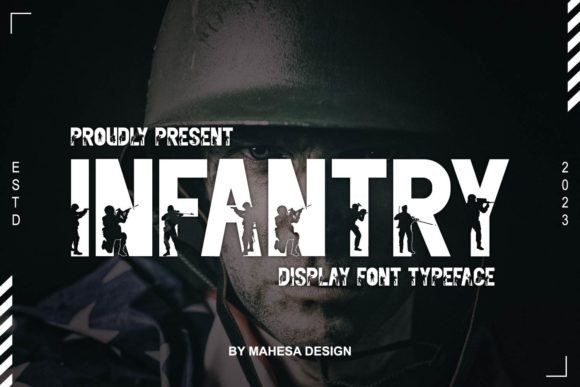
Enter the world of Infantry Font, an extraordinary decorative font designed by Mahesa Design. Its unique selling point lies in the intricately crafted silhouettes of infantry soldiers embedded within each letter, oozing military charm. This font is a weapon in the arsenal of designers seeking to create striking designs that leave a lasting impression.
Infantry Font is the perfect choice for crafting posters, flyers, and other designs that demand a bold and forceful typeface. Its powerful presence will cut through the noise, ensuring your message is heard loud and clear. Whether you're designing for a military organization, a patriotic event, or simply seeking to add a touch of military-inspired flair to your designs, Infantry Font has your back.
But wait, there's more! As a bonus, you'll receive a collection of vector silhouettes of infantry soldiers, empowering you to elevate your designs even further. These versatile silhouettes offer endless possibilities for creating eye-catching and memorable designs that are sure to capture attention.
Transform your designs into a parade of military might with Infantry Font. Its distinctive character and unwavering boldness will leave an indelible mark on your audience. Seize this opportunity to add Infantry Font to your design arsenal and witness the transformation it brings to your creations. Seize the power of Infantry Font today! Take the reins and lead your designs to victory.